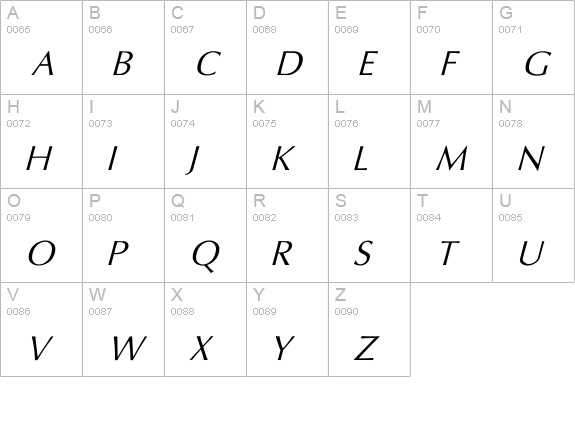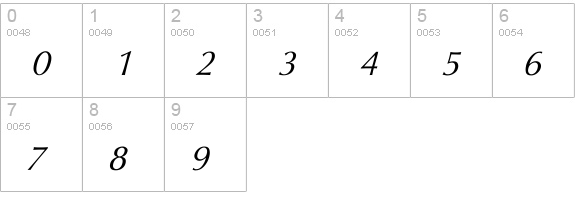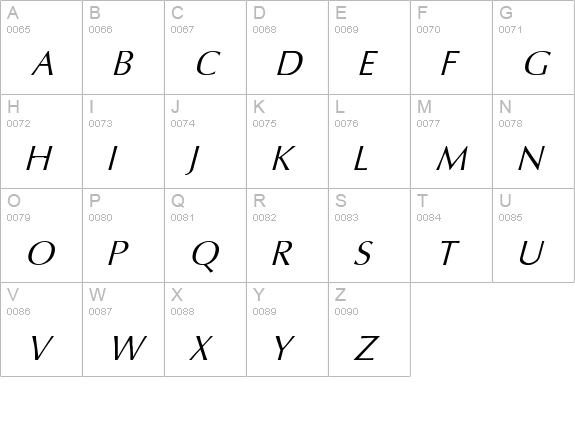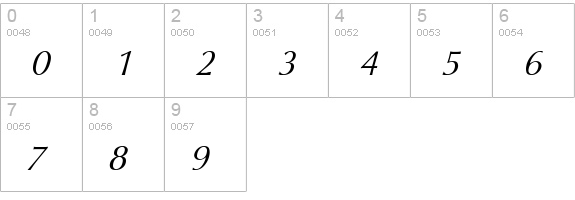
Oxford Italic is a distinctive, italic variant in the Oxford typeface family \xE2\x80\x94 well suited to design and typography projects.
Oxford Italic font is a stunning display of elegance and sophistication. Its sleek and stylized letterforms exude a sense of timeless grace, making it perfect for adding a touch of refinement to any design project. The smooth curves and delicate strokes of Oxford Italic create a sense of fluidity and movement, adding a dynamic element to your typography. What sets Oxford Italic apart is not just its beauty, but also its accessibility. This exquisite font is available for free download at FontsMarket.com, allowing designers and creatives to easily incorporate its charm into their work without any financial constraints. Whether you're working on a branding project, a poster design, or a website layout, Oxford Italic is sure to elevate your content with its sophisticated flair. Download this exquisite font today and unlock a world of possibilities for your design endeavors.